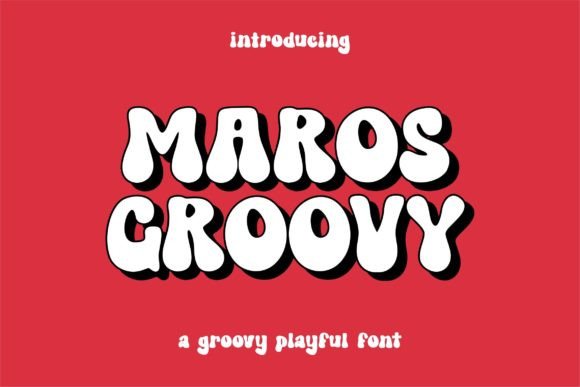
Step into a world of groovy retro vibes with Maros Groovy, a display font that oozes personality and charm. Designed by Vunira, this font is a perfect blend of fun and playfulness, adding a dash of nostalgia to your projects.
Maros Groovy's cheerful nature and funky retro style make it an ideal choice for wedding cards, invitations, posters, and any design that demands a cool and whimsical touch. Let your creativity dance to the rhythm of this font, as it effortlessly captures the carefree spirit of the past with a modern twist.
With Maros Groovy, you'll have a font that's as versatile as it is stylish. Whether you're creating party flyers, branding materials, or social media graphics, this font will add a groovy touch that's sure to turn heads. Its playful curves and energetic vibe will make your designs stand out from the crowd.
Maros Groovy is not just a font; it's an experience that transports you back to the days of bell-bottoms and disco fever. It's a chance to add a bit of retro charm to your designs and make them truly memorable. So, embrace the groovy vibes and let Maros Groovy take your projects to new heights of awesomeness.
* Unleash your creativity with this captivating font that brings a refreshing retro aesthetic to your designs.
* Create wedding cards that radiate joy and charm, reflecting the special bond between two souls.
* Design posters that transport viewers to a bygone era, evoking nostalgia and good vibes.
* Make your invitations pop with a groovy twist, setting the tone for an unforgettable event.